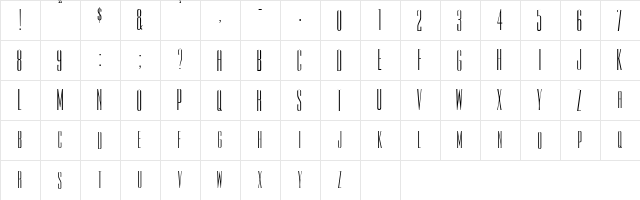
ChianneCondSCapsSSK Regular
Design Context for ChianneCondSCapsSSK Typeface
ChianneCondSCapsSSK takes a measured approach to typography — its balanced proportions and neutral character make it a reliable workhorse for both digital and print work. Its narrow stance lets it pack a punch even in space-constrained designs.